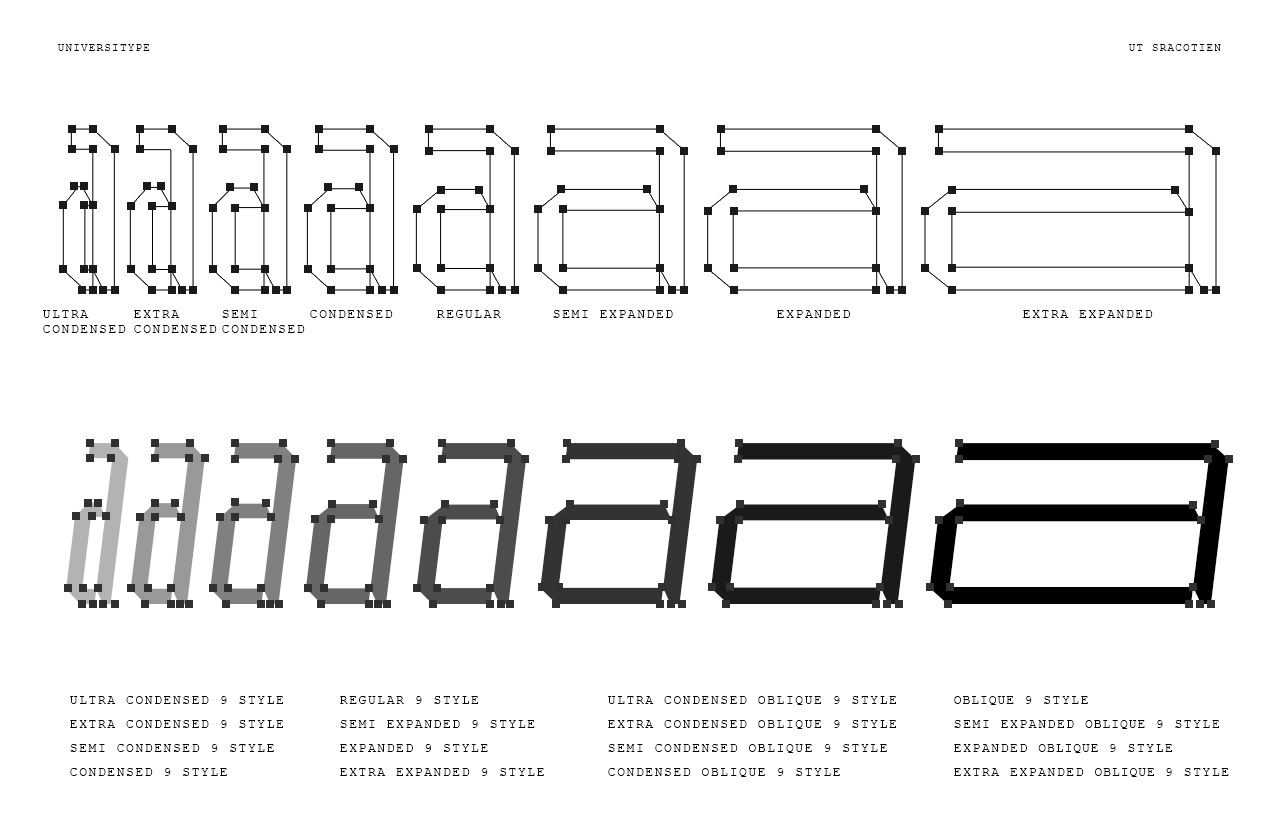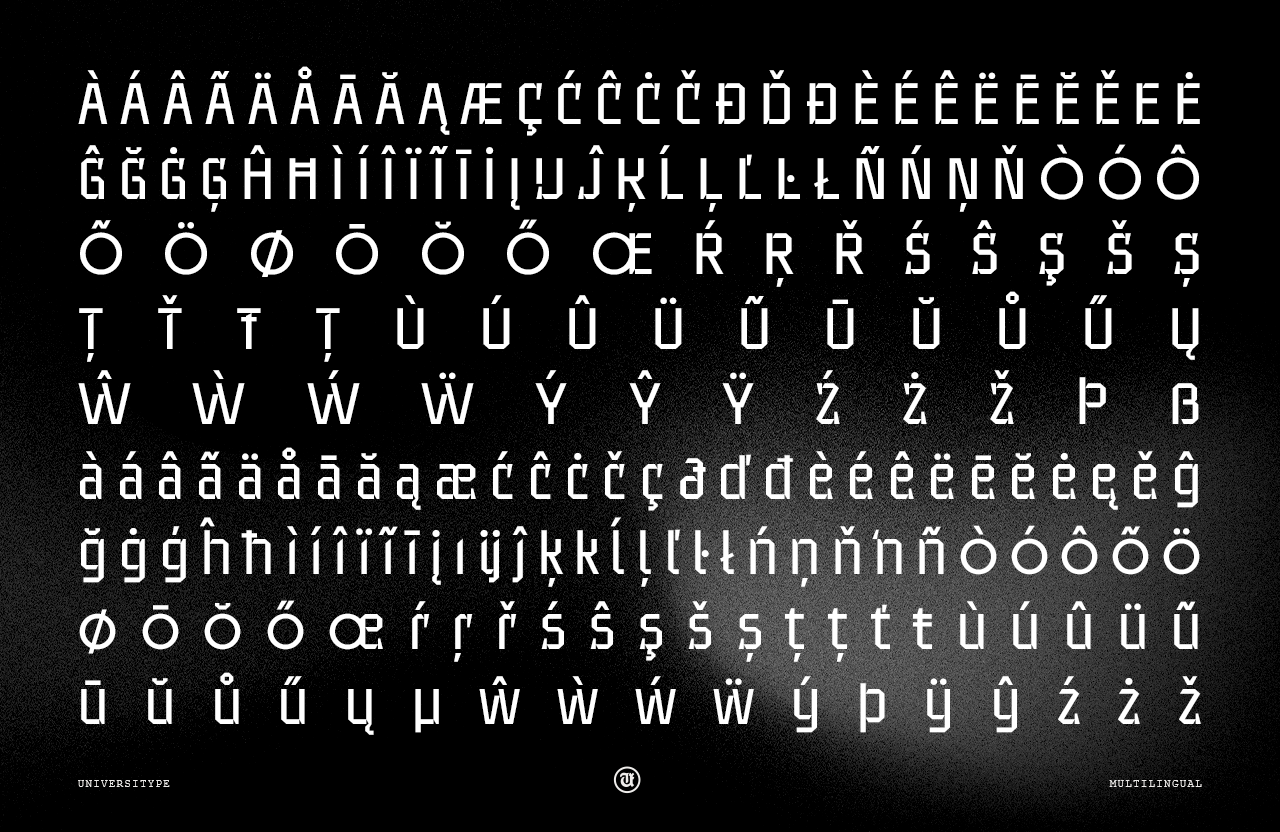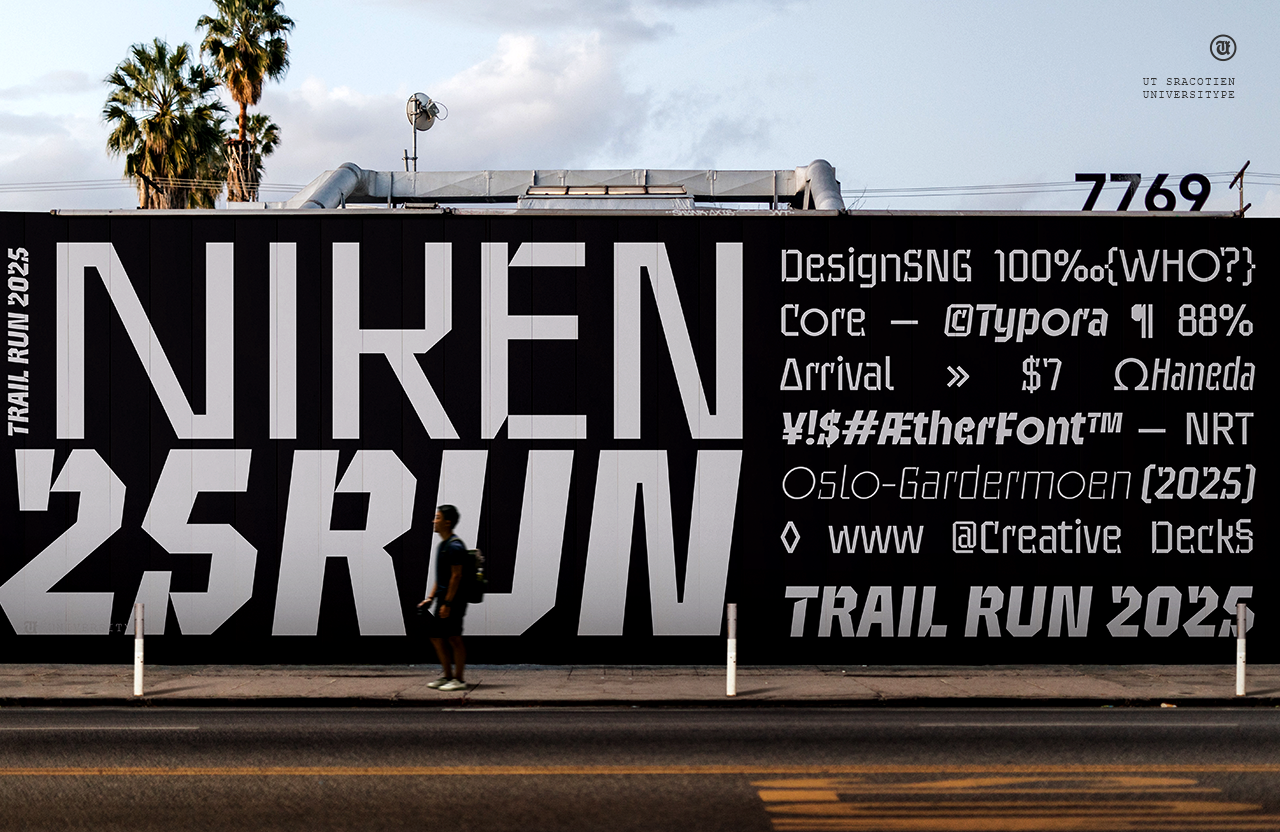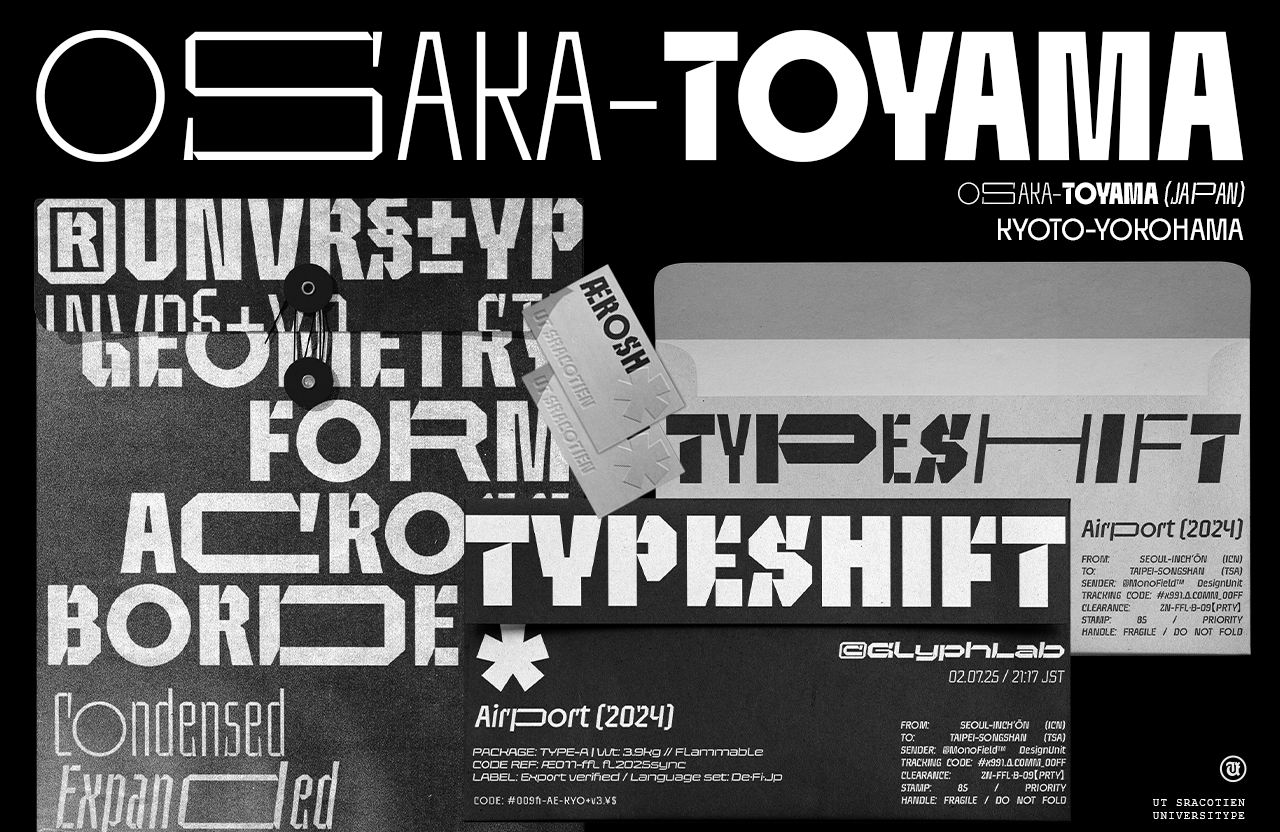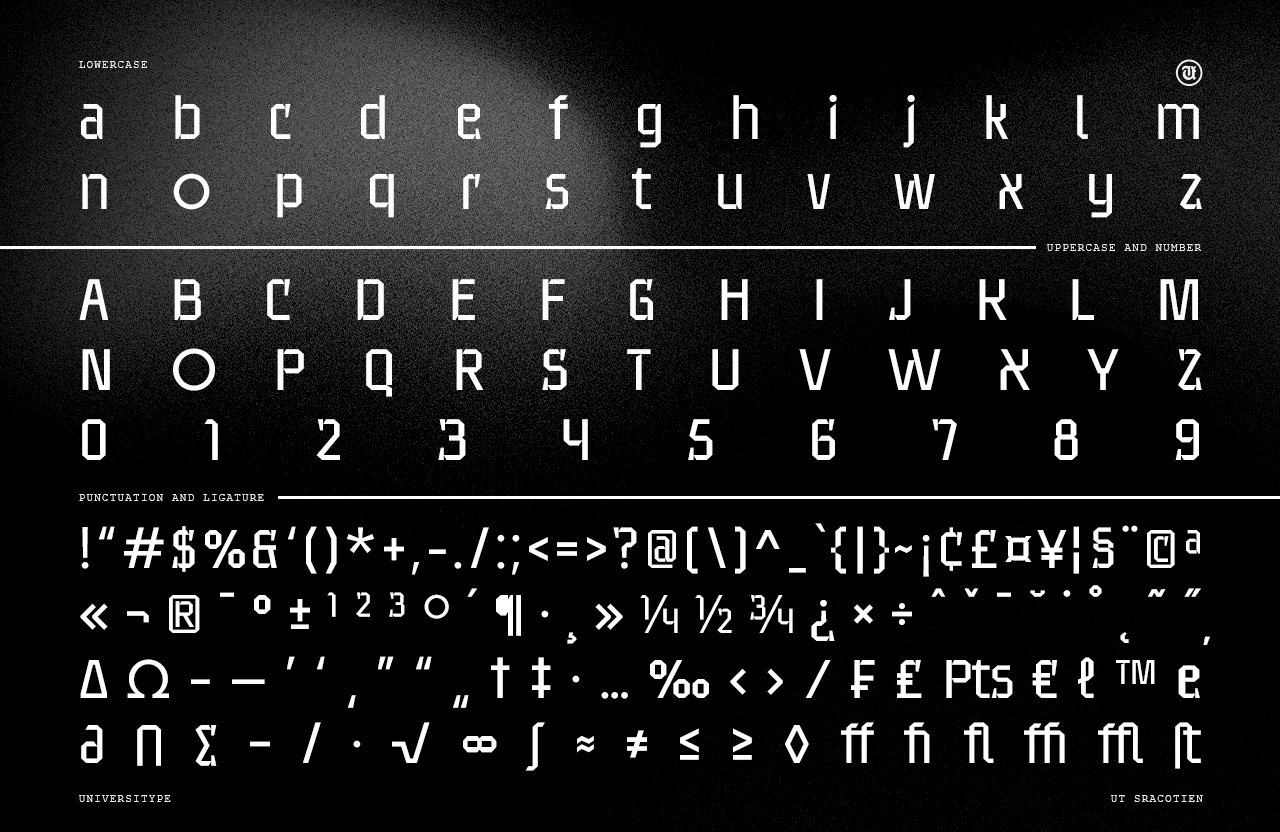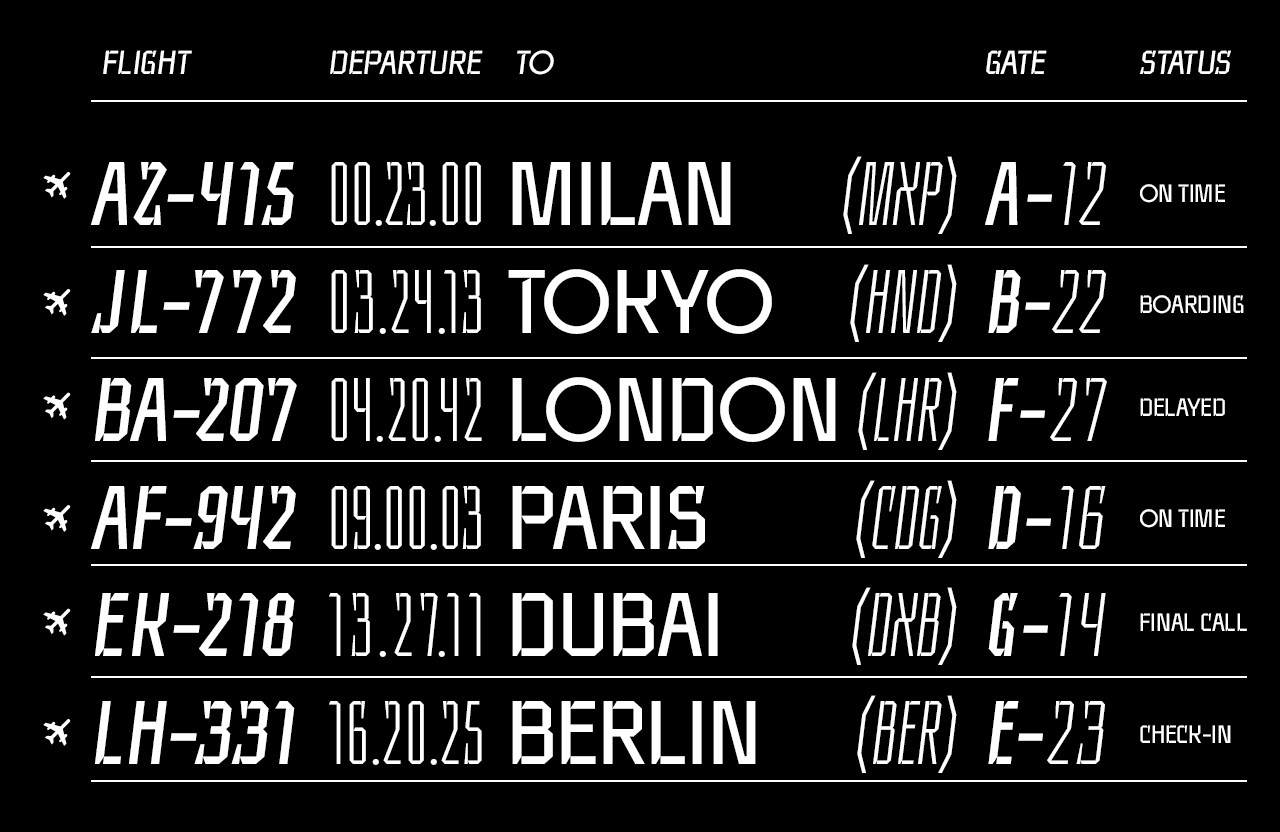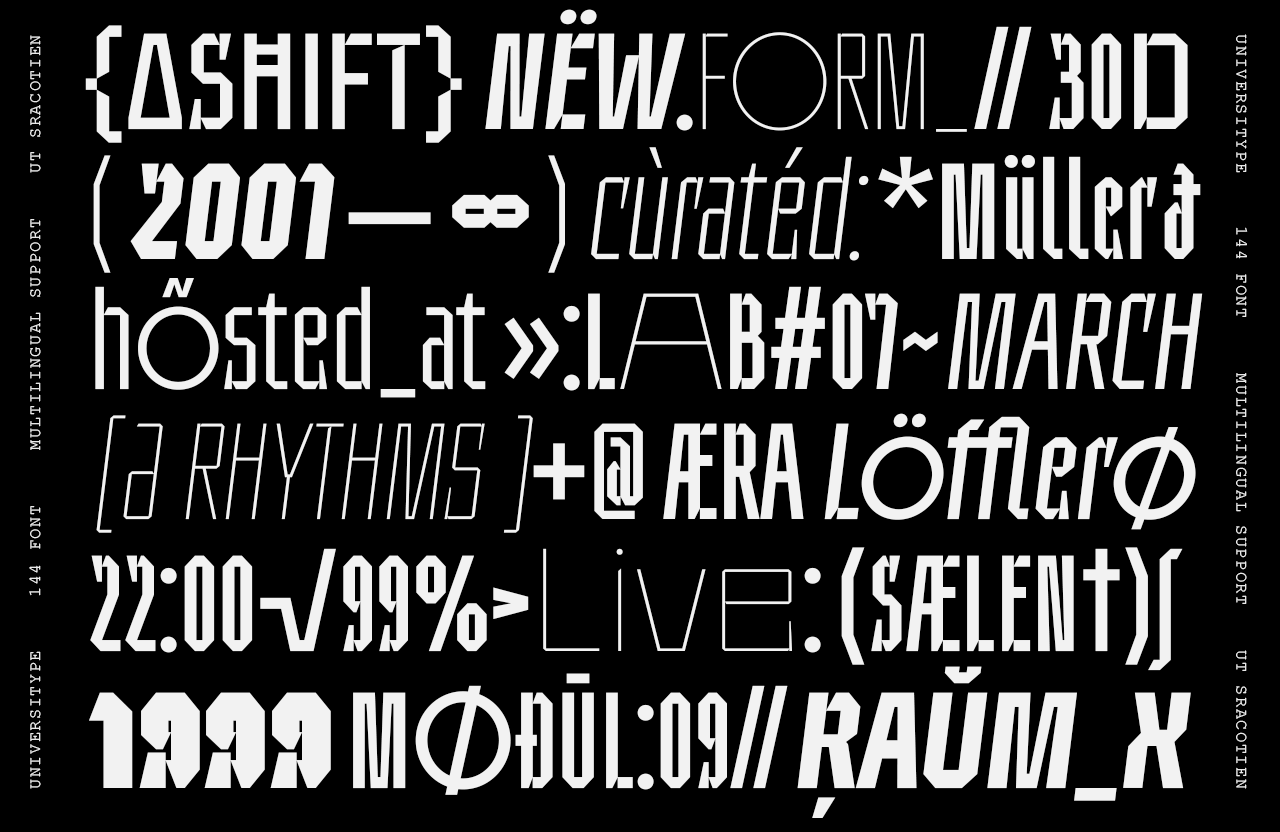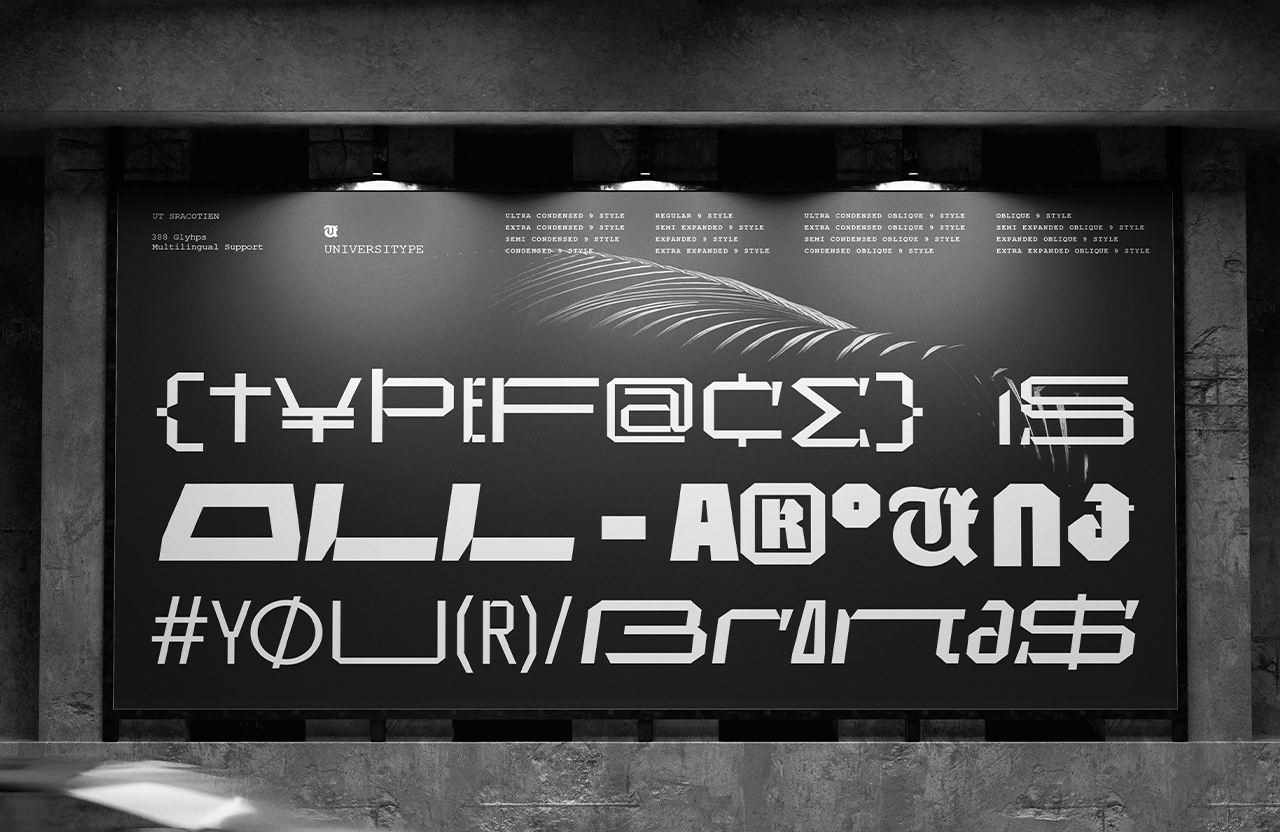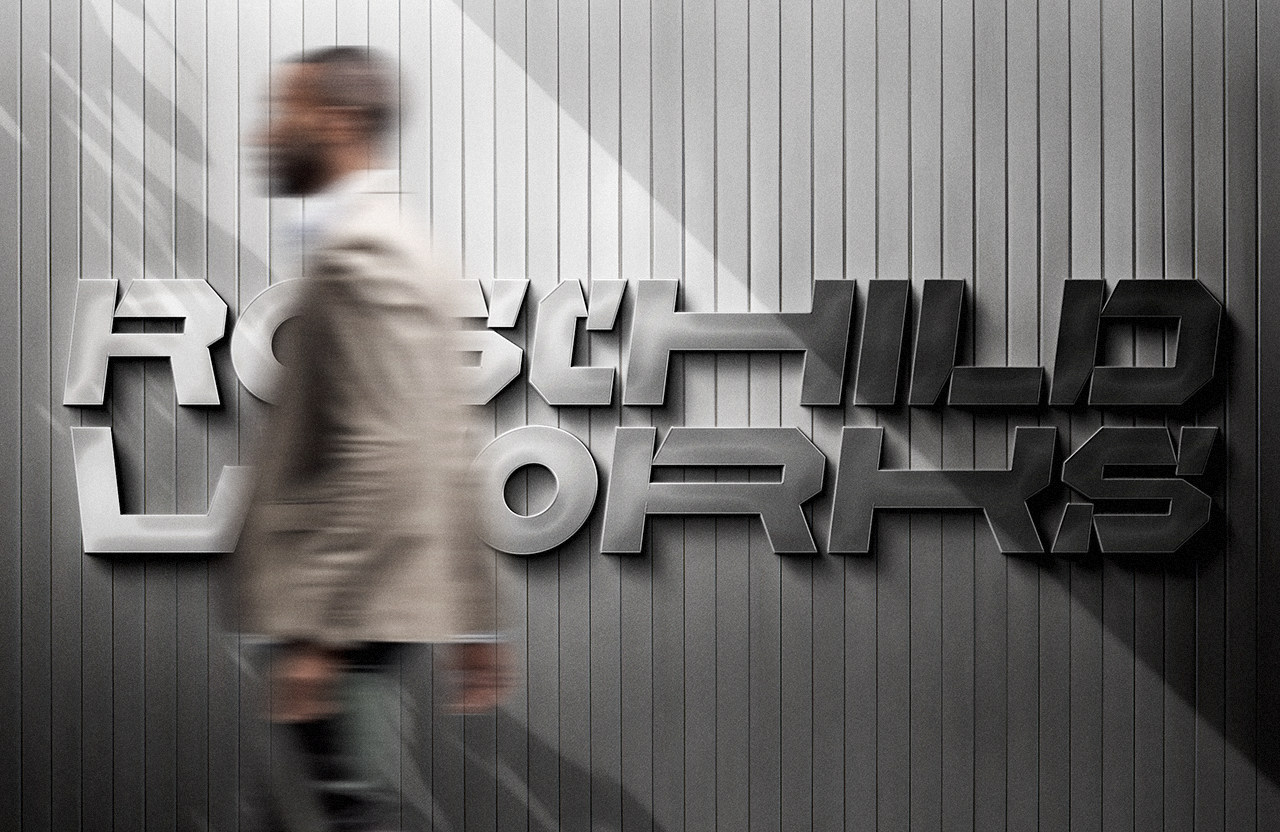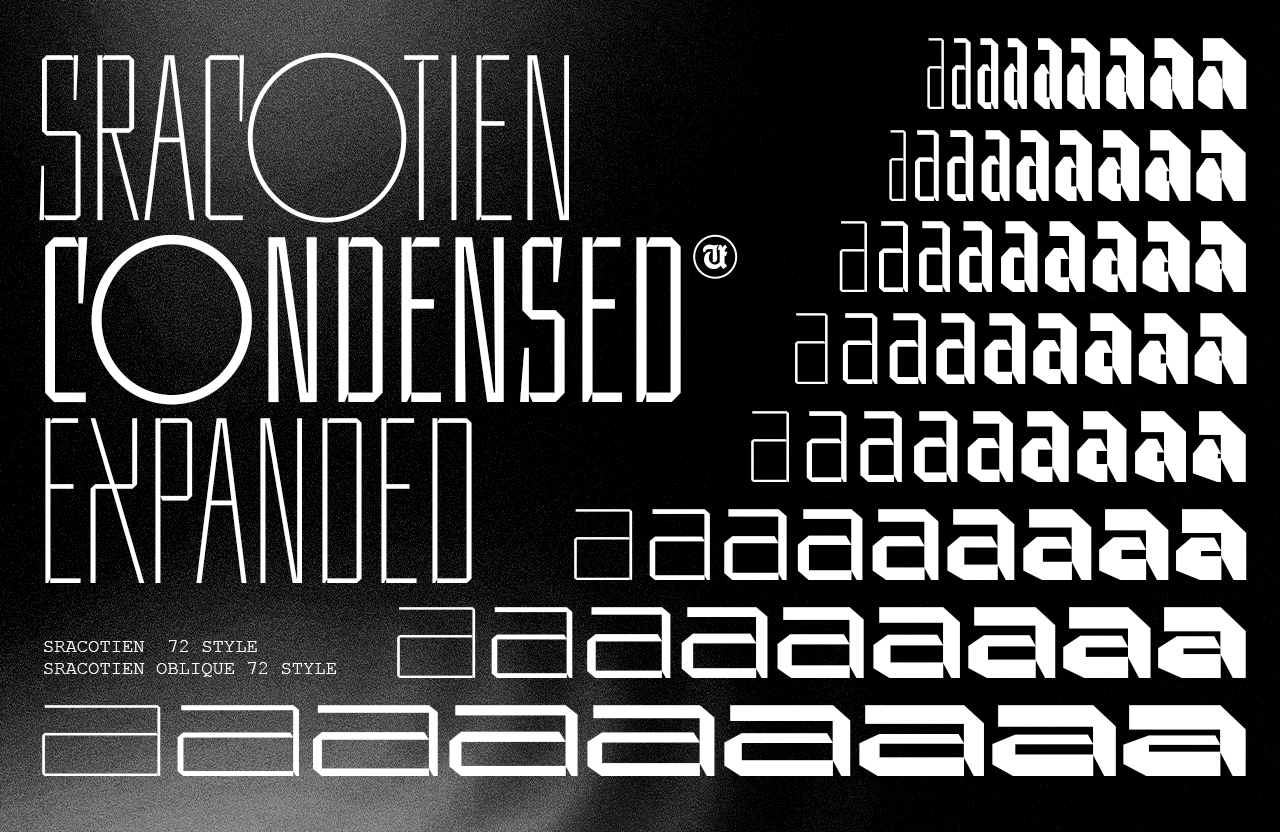
UT Sracotien - A Modern Futuristic Super Family Font
UT Sracotien is a versatile superfamily font, offering an impressive array of 144 styles to cater to the most diverse design needs. This font family includes a range of weights from Thin to Black and widths from Ultra Condensed to Extra Expanded, each available in both upright and oblique versions.
**Key Features:**
- **Extensive Style Options:** With 144 distinct styles, UT Sracotien provides an unparalleled level of choice for designers, ensuring a perfect match for any design context.
- **Futuristic Design:** Inspired by modern architecture and digital technology, the font's geometric shapes and structured form are ideal for projects that require a contemporary and innovative look.
- **Versatility:** Suitable for a wide range of applications, including branding, web design, publishing, and creative projects, ensuring a strong visual impact across various media.
- **Readability:** Designed for high readability across various sizes and platforms, making it a reliable choice for both digital and print use.
- **Multilingual Support:** Offers extensive language support, making it accessible to a global audience and suitable for international projects.
- **Glyph Set:** Includes a broad set of glyphs, covering a wide spectrum of typographic needs and ensuring comprehensive coverage for diverse languages.
- **Variable Font Technology:** Allows for dynamic adjustments to weight, width, and obliqueness, providing flexibility and enhancing the user experience by allowing designers to fine-tune the font to their exact requirements.
- **Adaptability:** Its design adapts well to various design contexts, from small text to large headings, making it a must-have for any design project that demands both style and functionality.
UT Sracotien is an excellent choice for designers looking for a font that is both stylish and functional, offering a unique blend of aesthetics and practicality that can elevate any project to new heights.